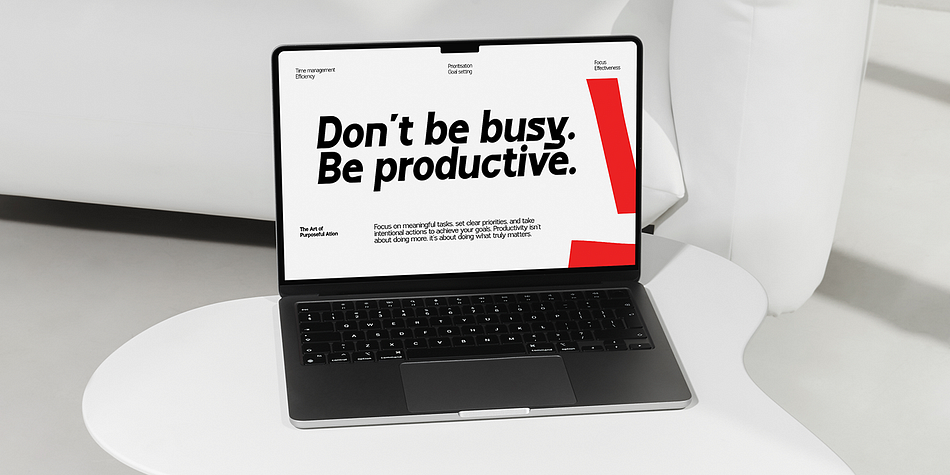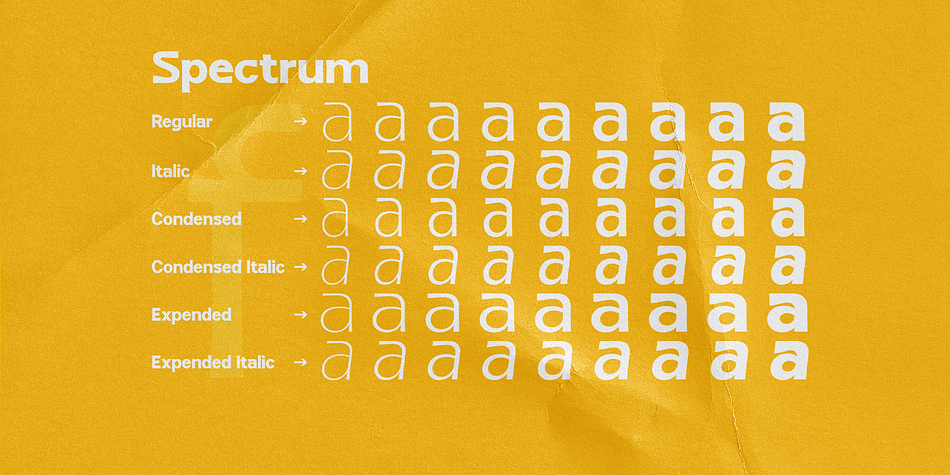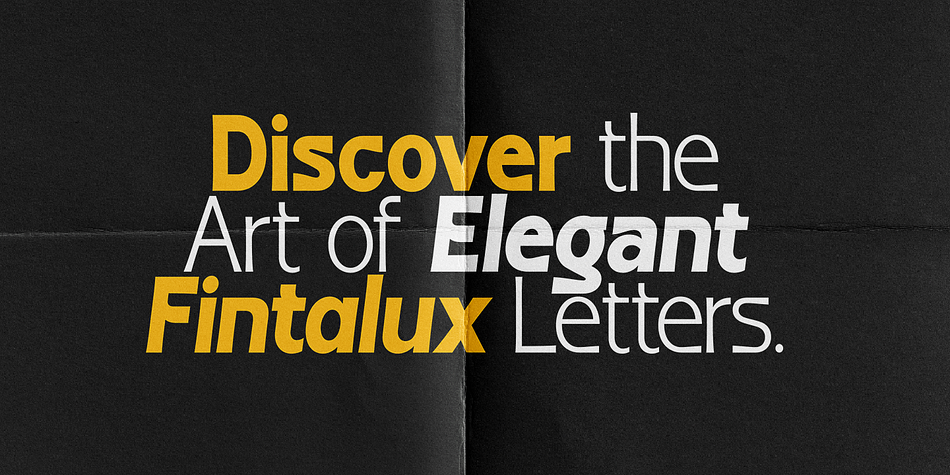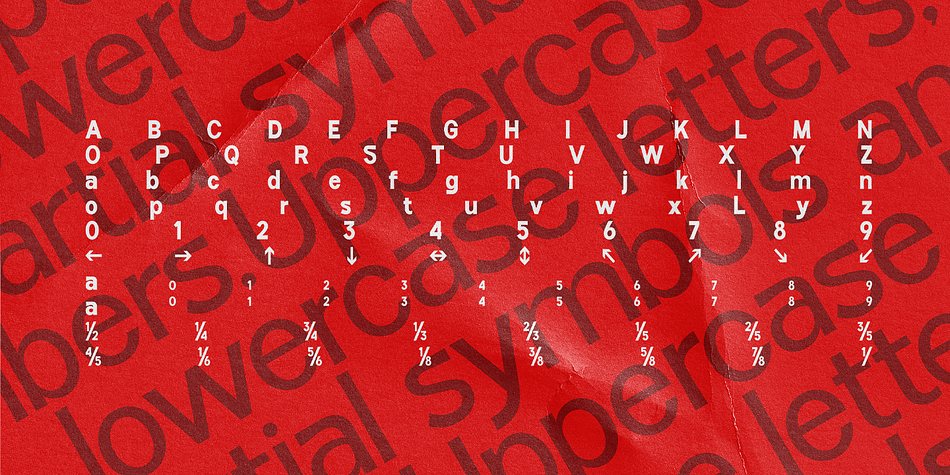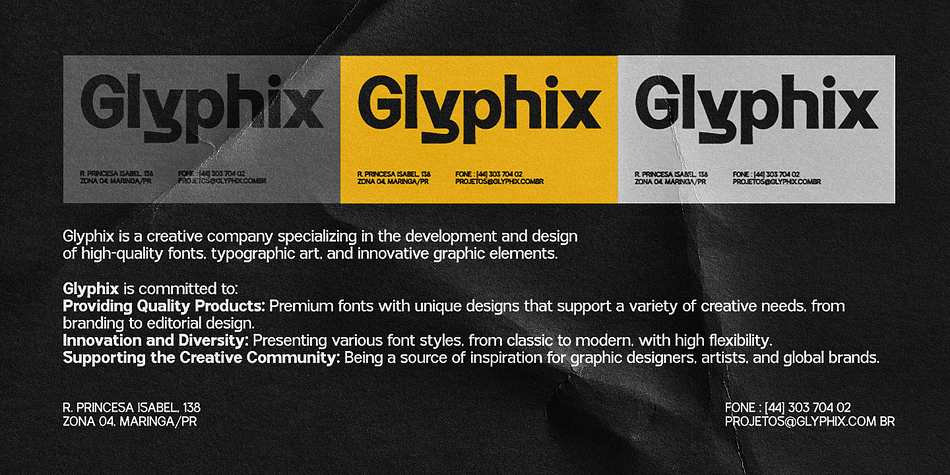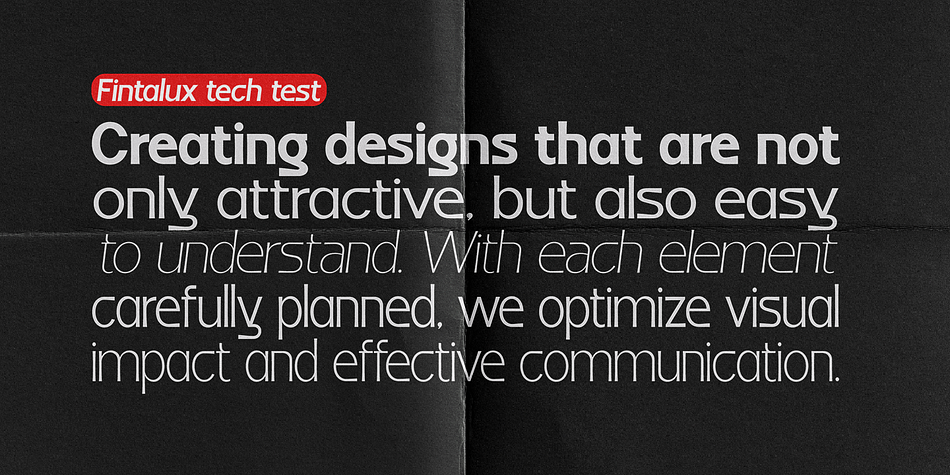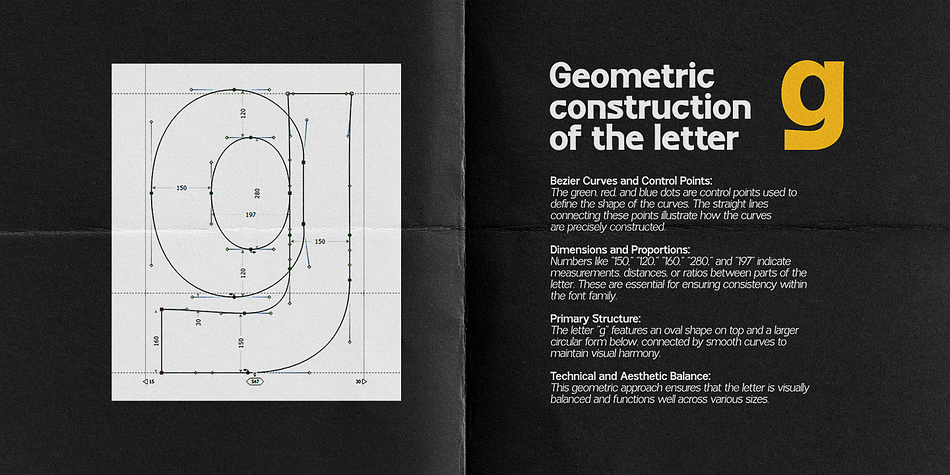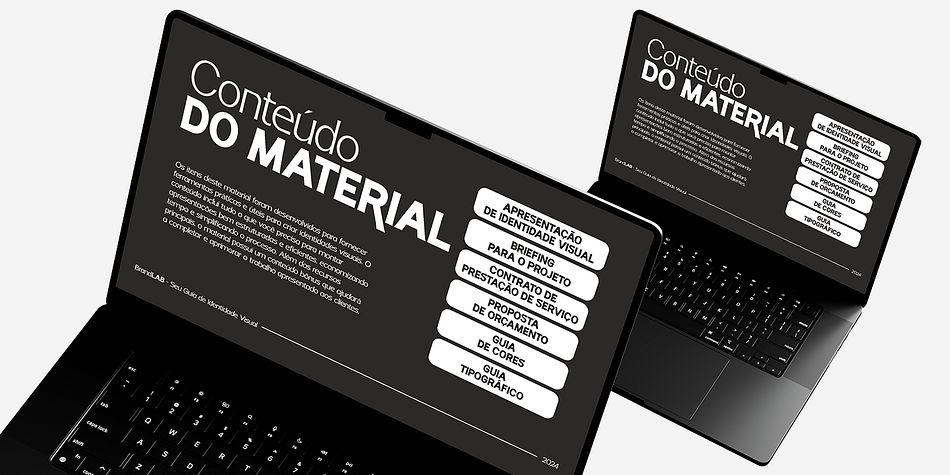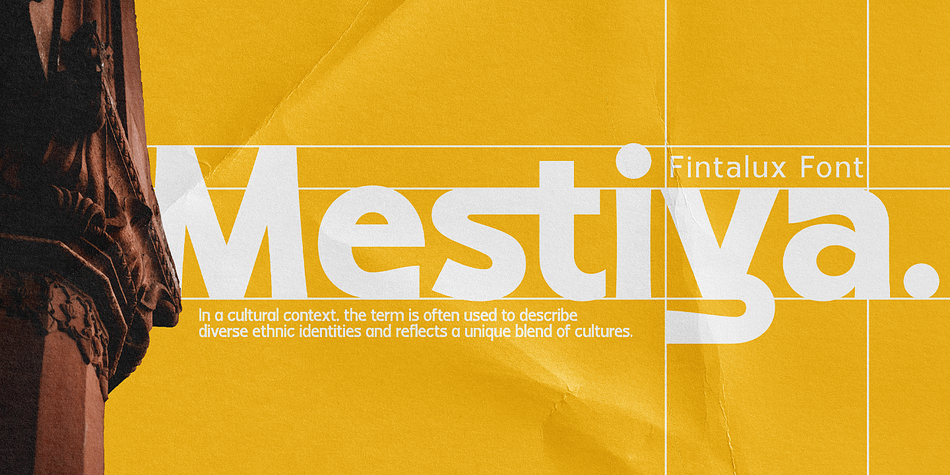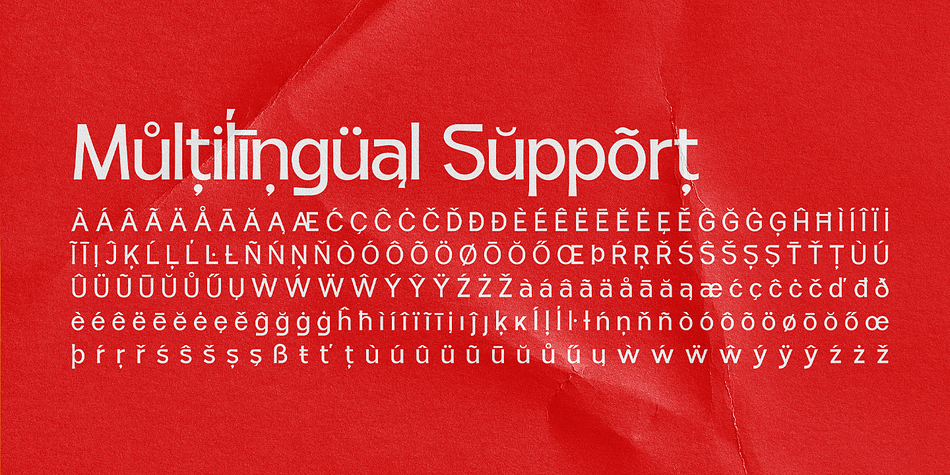
Fintalux
Fintalux is a sans serif font family. This typeface has fifty-four styles and was published by Pista Mova.
Introducing Fintalux Font Family.
Experience timeless elegance with Fintalux, a carefully crafted sans typeface that blends modern charm with contemporary style. Its high-contrast strokes and graceful curves create a visual symphony that captivates the eye and enhances any design. Whether you’re creating a sophisticated editorial layout, a striking brand identity, or an engaging website, the versatility and refined beauty of Fintalux will make your work stand out. Immerse yourself in the world of Fintalux Sans, where every character has been carefully designed to exude strength and refinement. From its carefully sculpted sans to its perfectly balanced proportions, this typeface is a testament to the timeless power of modern typography. Its true italics, with their unique personality, add a touch of dynamic movement and visual interest, allowing you to create designs that are both captivating and easy to read.
Key Features:
Effortless Elegance: Fintalux Sans’ ​​clean lines and balanced proportions exude modern charm, making it ideal for a wide range of applications. Elegant Ligatures: Add a touch of personality with a curated collection of ligatures, creating unique and eye-catching letter combinations. OpenType Features: Take full control of your typography with advanced OpenType features, Alternate and Ligature. Multilingual Support: With support for over 90 languages, Fintalux Sans ensures your message reaches a global audience. True Italics: Fintalux Sans Italics are more than just the italics of your regular font. They are carefully designed to complement upright characters and create a harmonious visual flow.
Perfect for:
Editorial Design: Magazines, newspapers, books — Fintalux Sans’ ​​legibility and elegance make it perfect for long-form text. Branding & Logos: Create a sophisticated and memorable brand identity with the timeless appeal of Fintalux Sans. Web Design: Fintalux Sans’ ​​clean lines and high contrast ensure optimal readability on screens of all sizes. Packaging & Print: Enhance your product packaging and printed materials with a touch of classy luxury. Invitations & Stationery: Make a lasting impression with the elegant presence of Fintalux Sans on invitations, greeting cards, and other stationery.